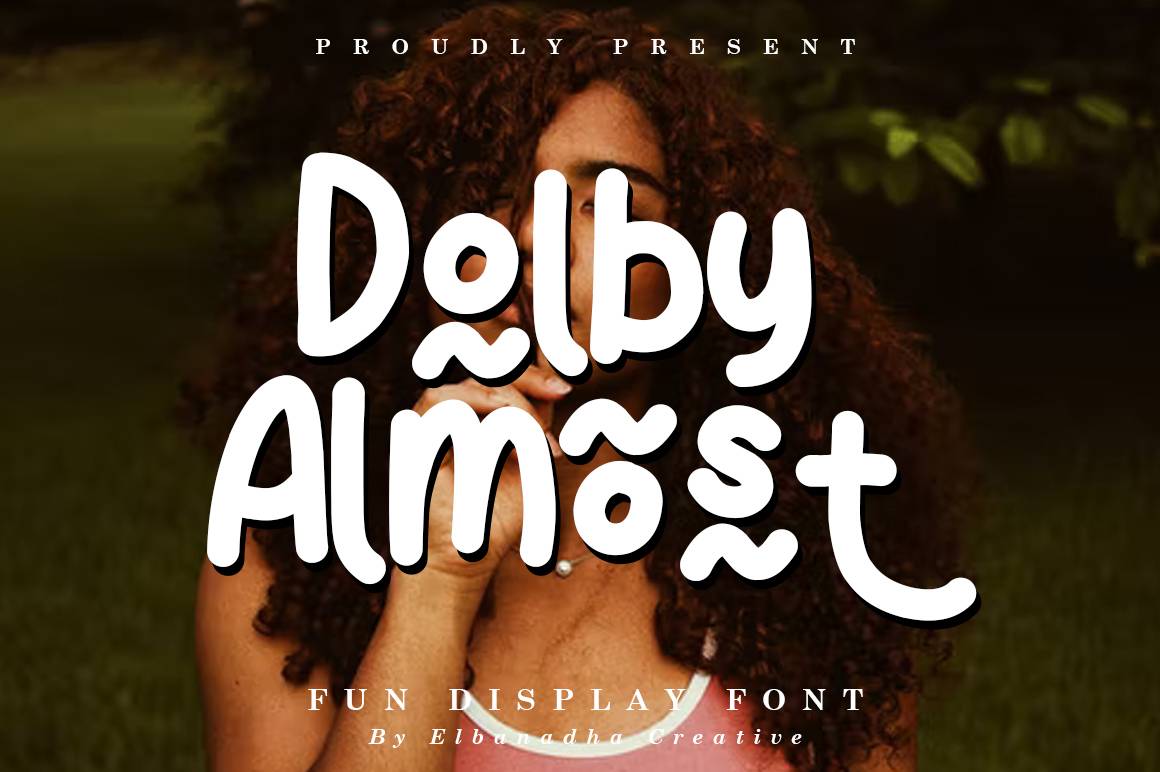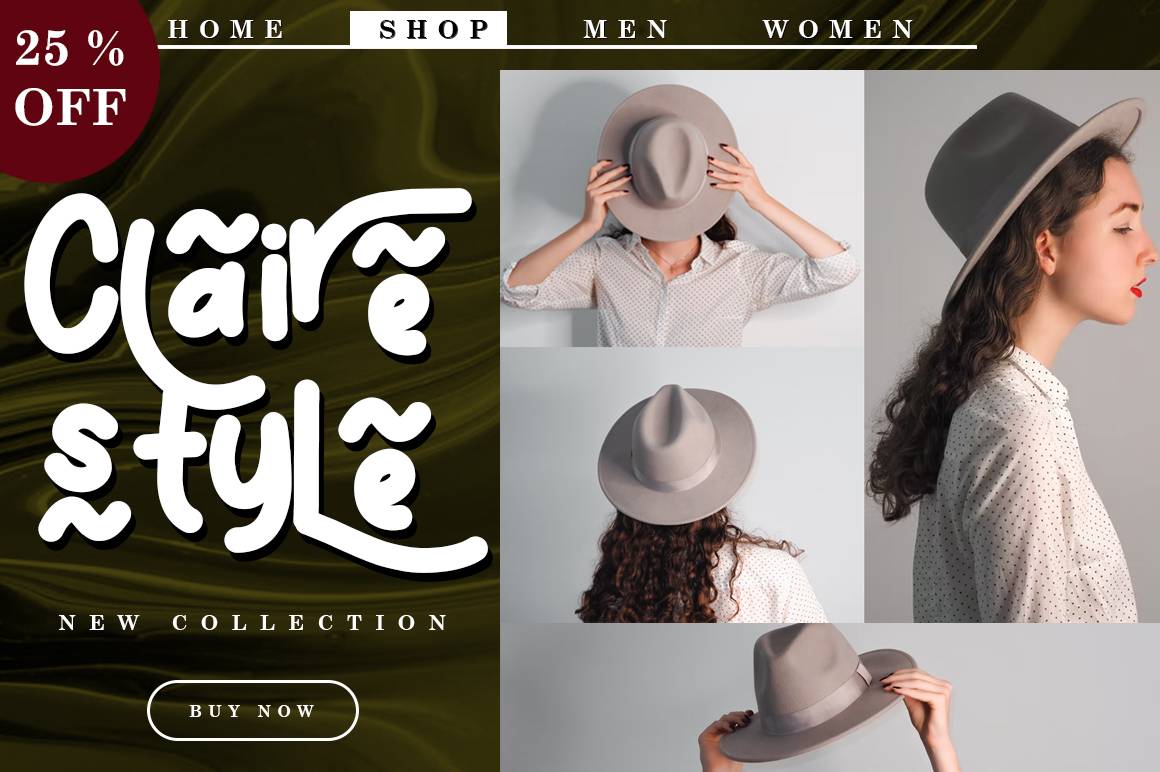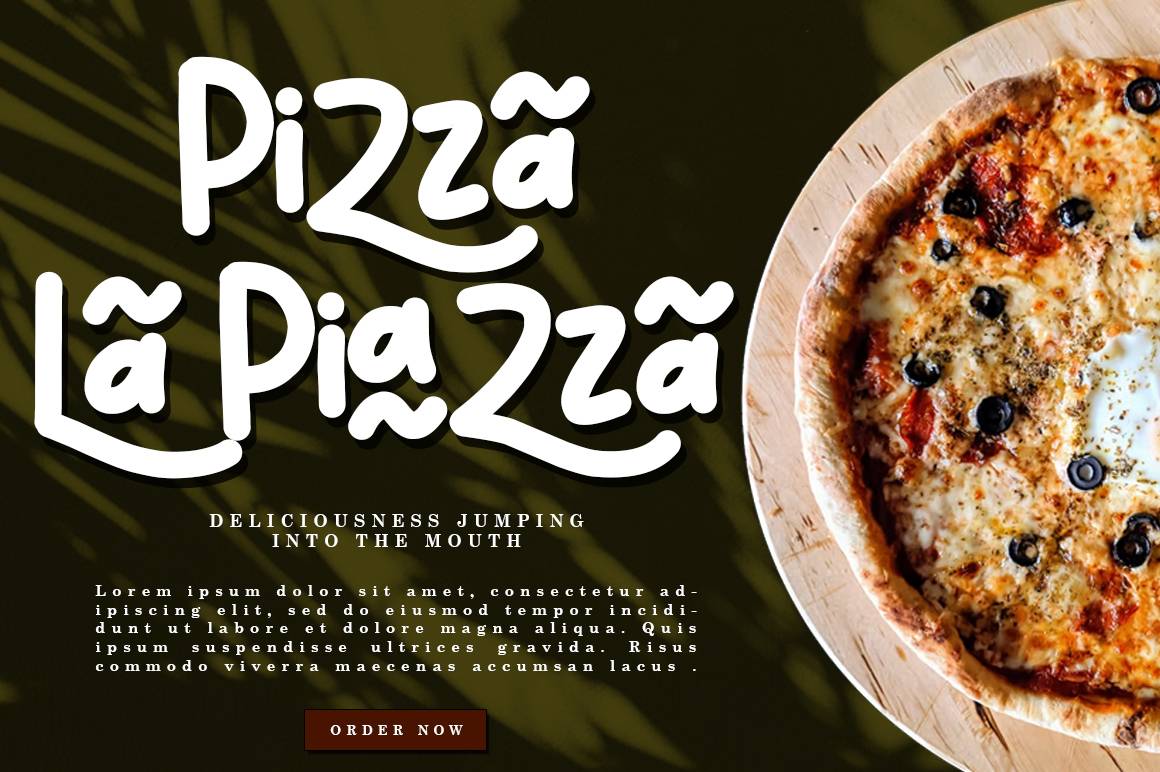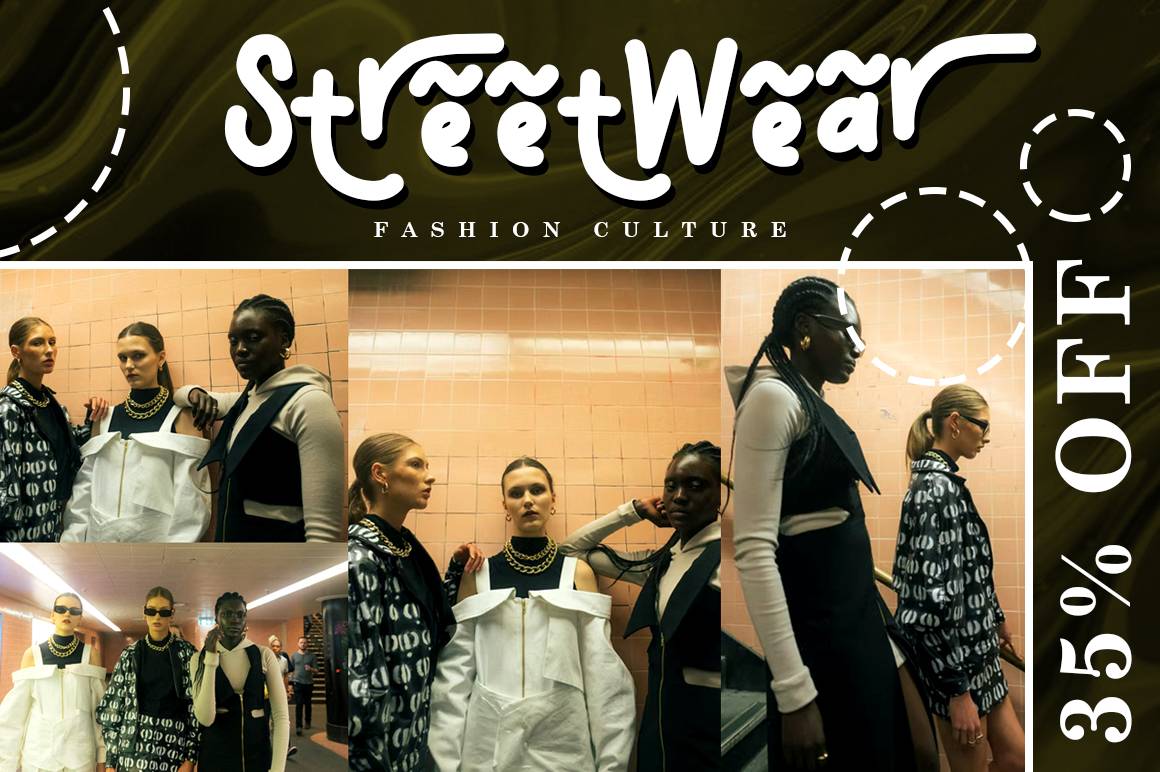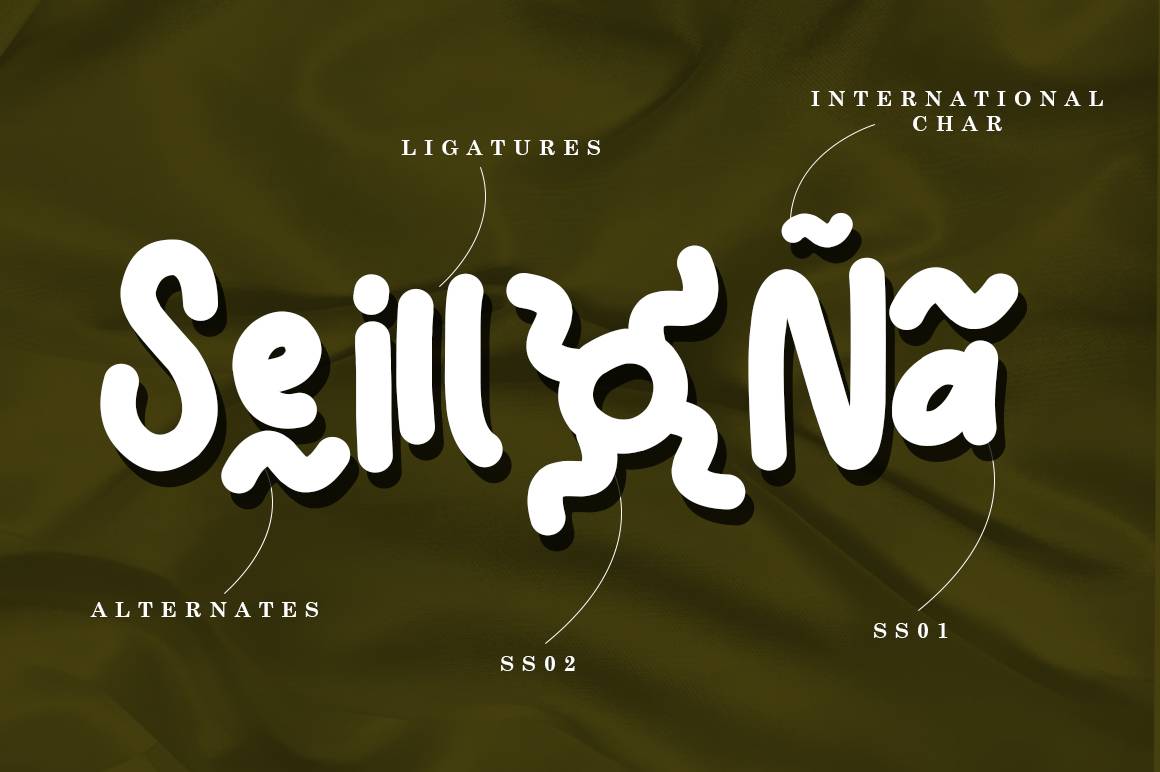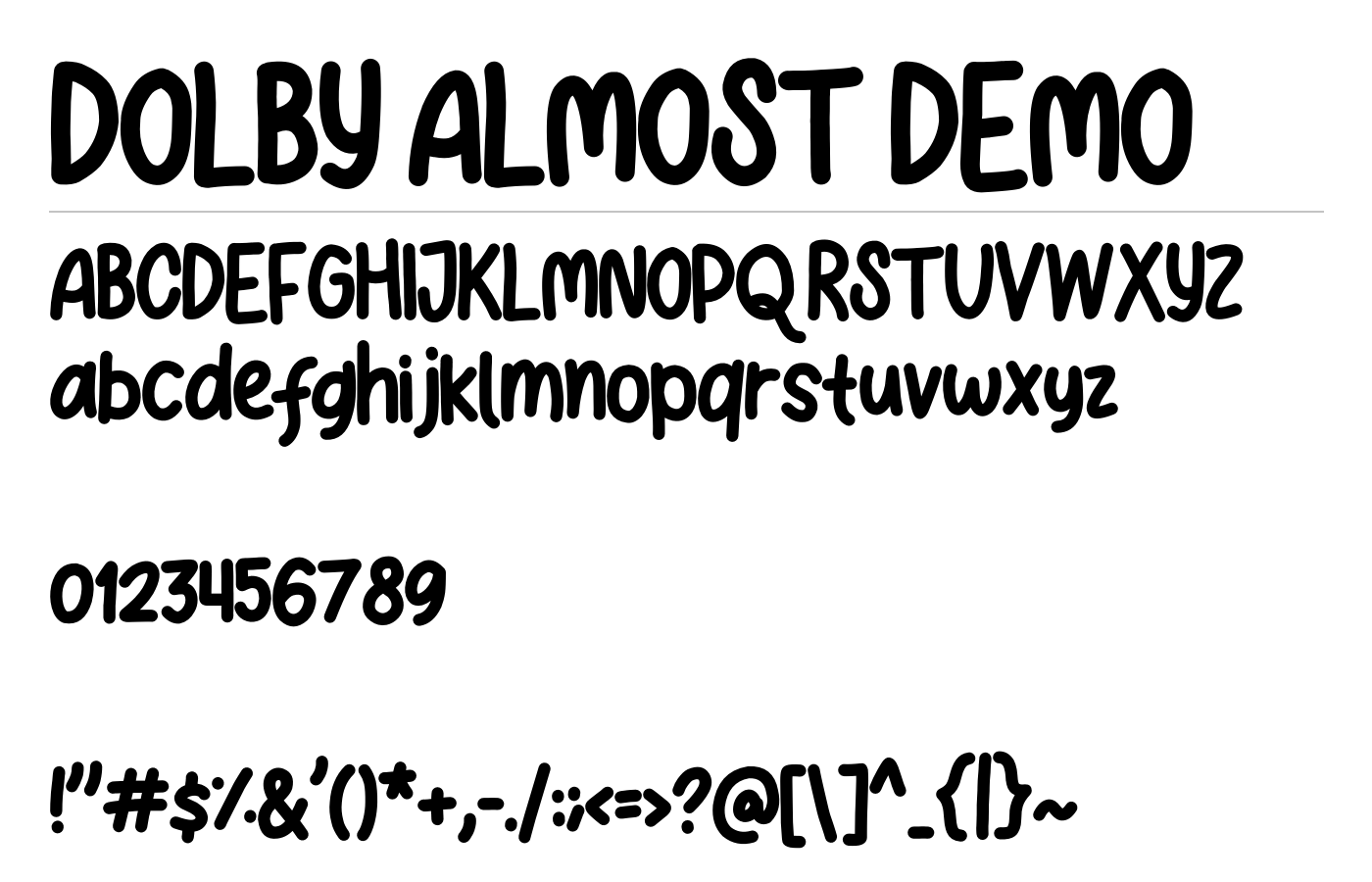
Dolby Almost is a playful and casual sans serif font with a hand-drawn feel, featuring rounded, slightly irregular strokes that convey warmth and friendliness. Its medium weight and wide letterforms make it highly legible and inviting, perfect for informal designs, children’s content, and creative projects seeking a fun, approachable look. This font works well for headlines, logos, and packaging where a relaxed and personable tone is desired.
Dolby Almost Font
About Dolby Almost Font
| Font family | Dolby Almost Font |
| Release date | 2022-02-25 |
| Designer | Elbanadha Creative |